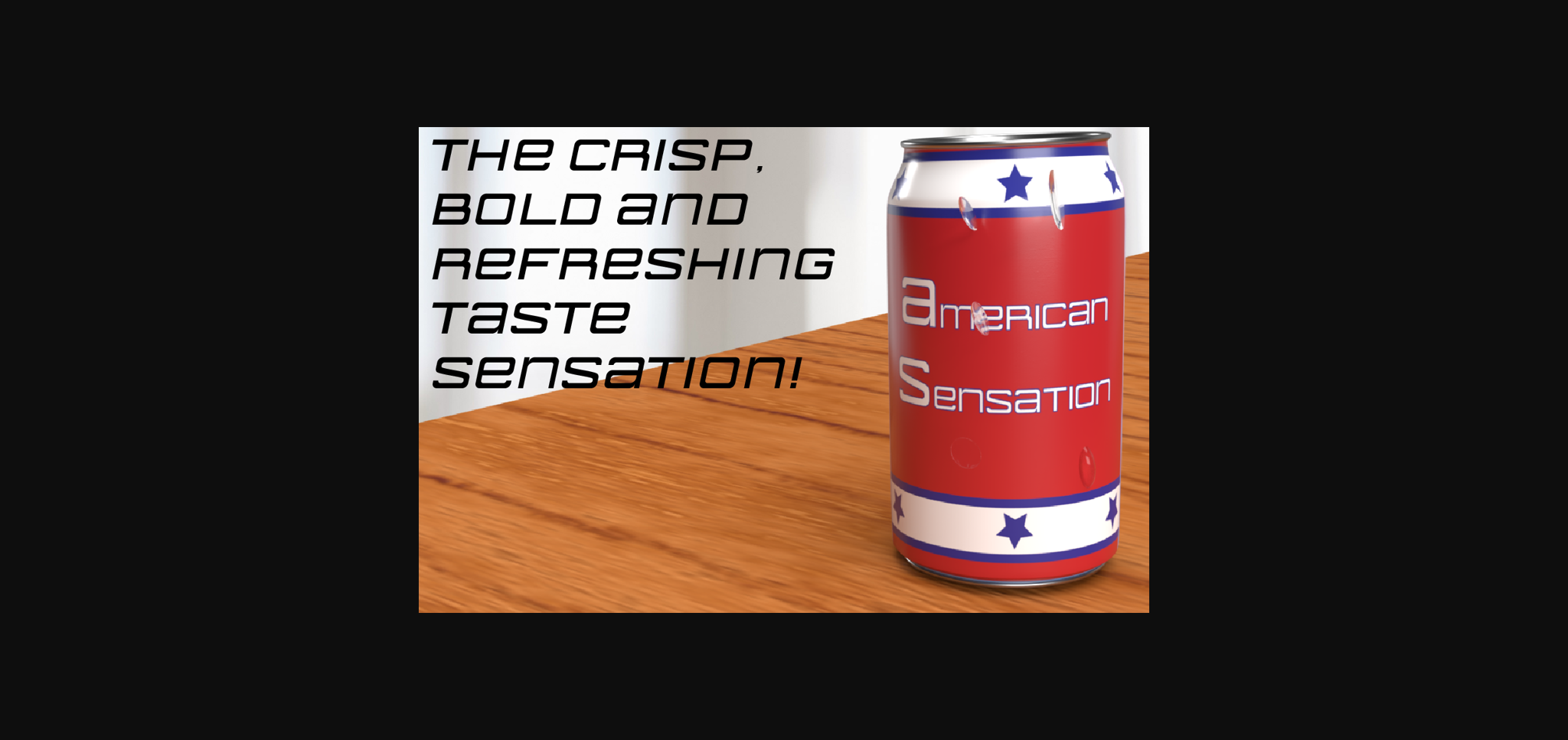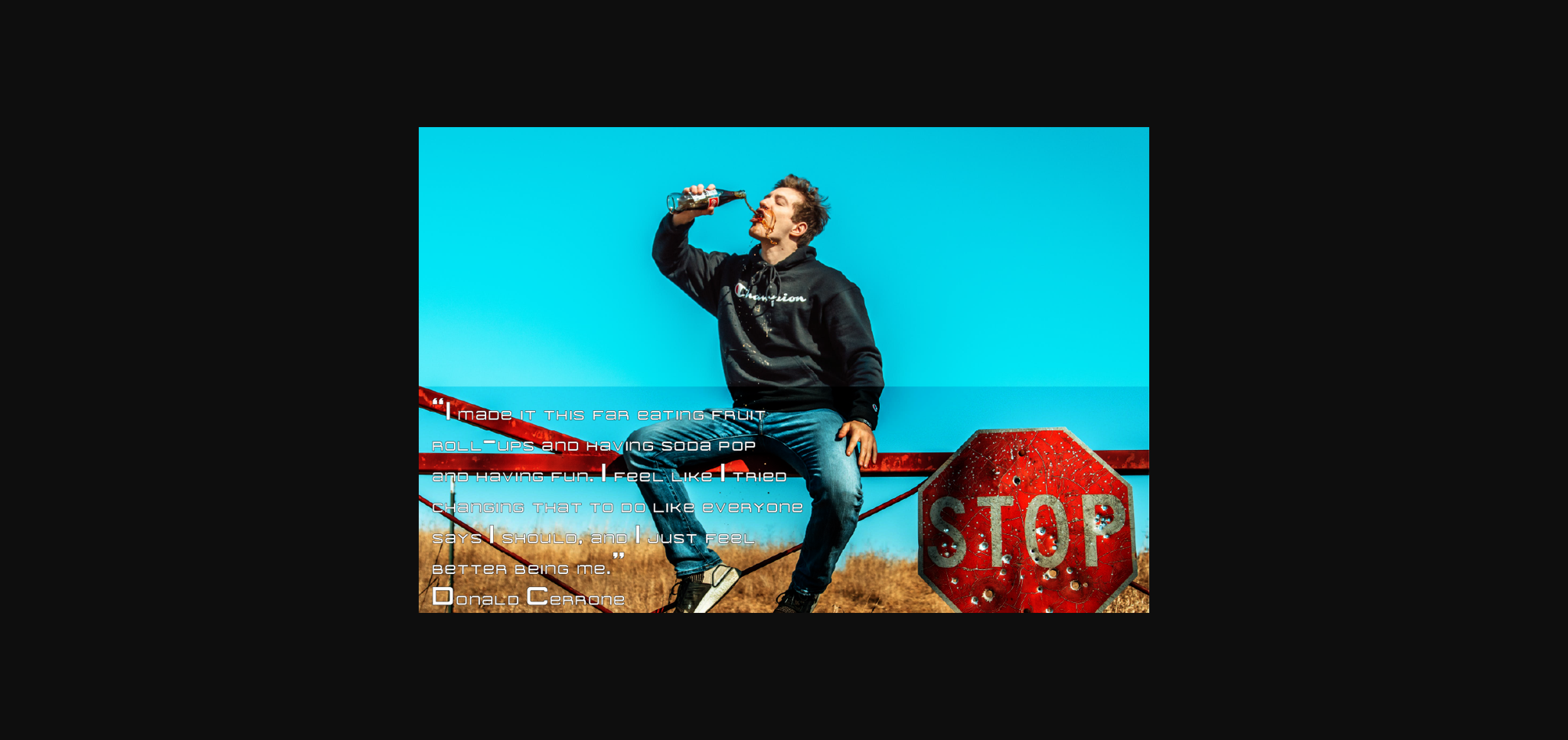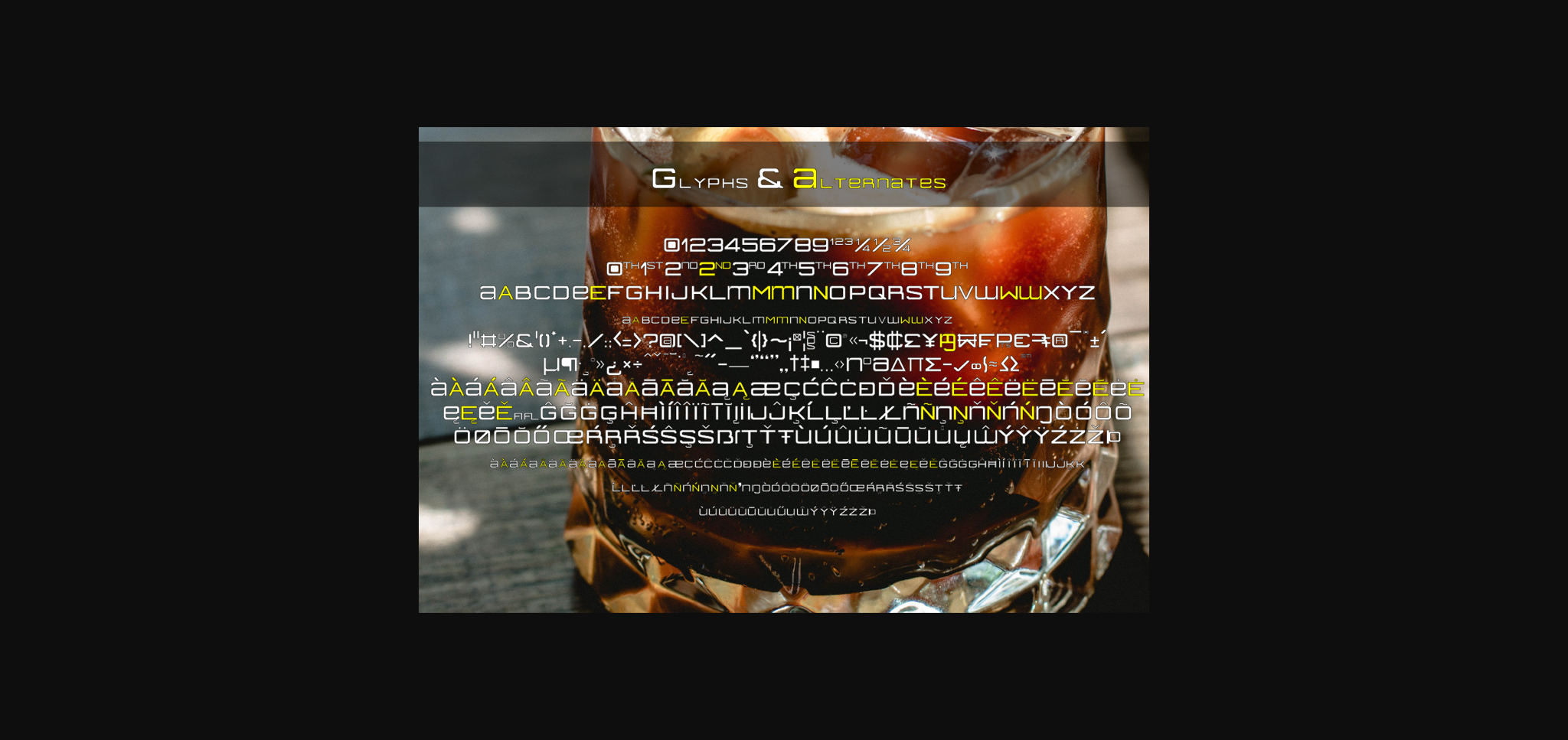
About American Sensation Family Font
American Sensation is a simple sans serif font. Filled with a retro feeling of sophistication and playfulness, this font can be used in a variety of fashions.